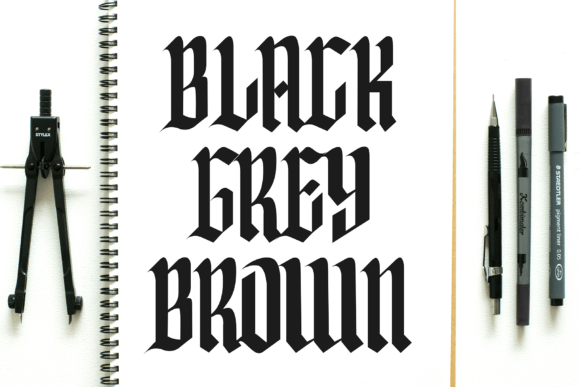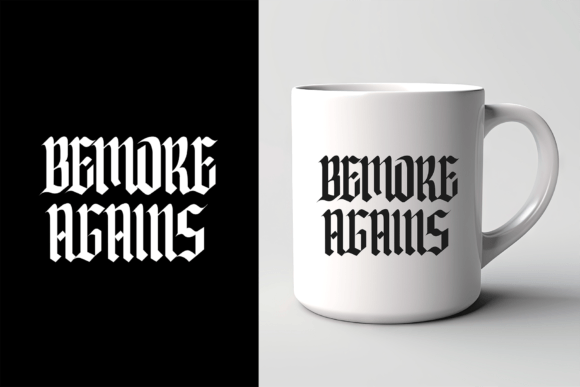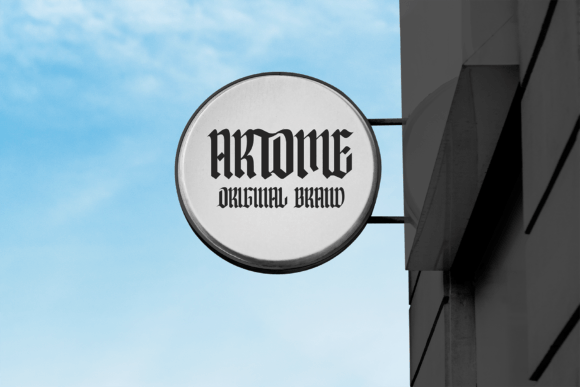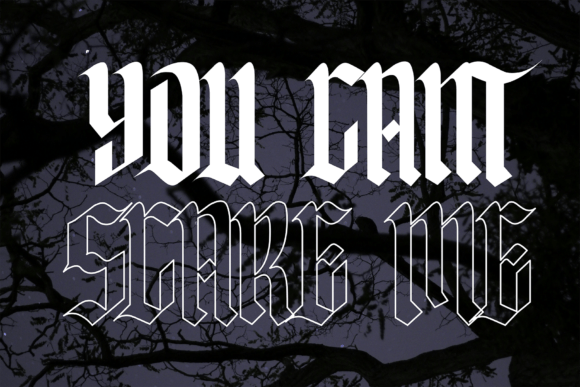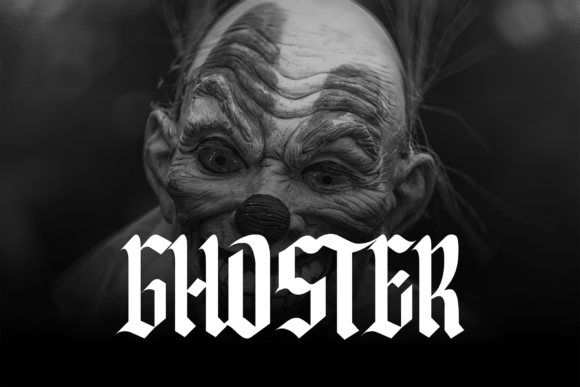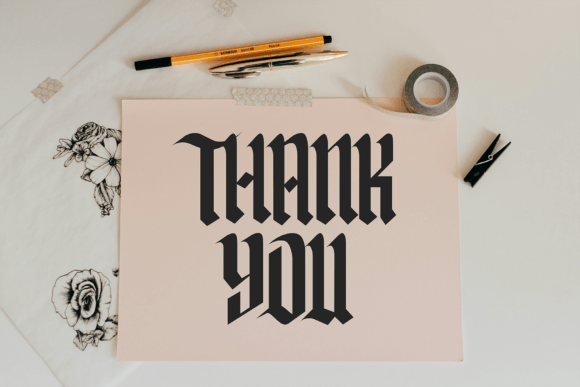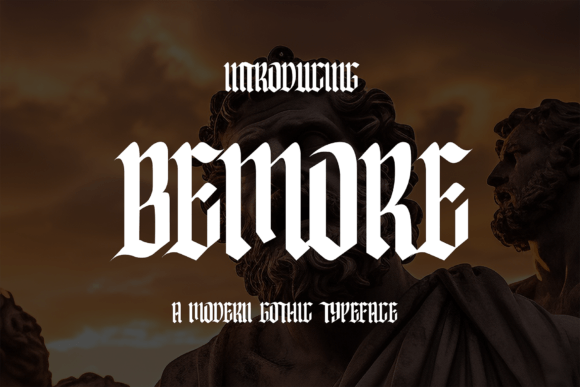
Bemore Font: A Unique Blend of Classic Elegance and Contemporary Flair
In the world of typography, fonts play a crucial role in conveying the tone and aesthetic of a design. For designers and crafters looking for a font that exudes classic elegance with a modern twist, Bemore Font is an excellent choice. This unique font seamlessly blends the traditional charm of blackletter gothic with a contemporary flair, making it perfect for western and Gothic-themed designs.
The Inspiration Behind Bemore Font
Bemore Font is inspired by the traditional blackletter gothic typefaces, which were popular in the Middle Ages. Blackletter fonts are characterized by their dramatic flourishes, intricate details, and bold strokes. However, these traditional fonts often lack a modern edge, making them less suitable for contemporary designs. Bemore Font addresses this gap by infusing the classic elegance of blackletter gothic with a modern flair, resulting in a font that is both timeless and trendy.
Key Features of Bemore Font
Bemore Font boasts several key features that make it an attractive choice for designers and crafters:
- Unique Blend of Styles: Bemore Font combines the classic elegance of blackletter gothic with a contemporary twist, making it perfect for designs that require a touch of sophistication and modernity.
- Western and Gothic-Themed Designs: The font is specifically designed to cater to western and Gothic-themed design needs, making it an excellent choice for projects that require a bold and dramatic look.
- Bold Statement: Bemore Font is designed to make a bold statement, making it perfect for headlines, titles, and other design elements that require attention-grabbing typography.
- High Versatility: The font is highly versatile and can be used for a wide range of design projects, including branding, advertising, packaging, and more.
Design Elements and Characteristics
Bemore Font features a range of design elements and characteristics that make it stand out from other fonts:
- Intricate Details: The font features intricate details, including flourishes and swashes, which add a touch of elegance and sophistication to designs.
- Bold Strokes: Bemore Font has bold strokes that give it a dramatic and eye-catching appearance, making it perfect for designs that require a bold statement.
- Classic Letterforms: The font features classic letterforms with a modern twist, making it perfect for designs that require a touch of tradition and heritage.
Tips for Using Bemore Font
Here are some tips for using Bemore Font in your designs:
- Use it for Headlines and Titles: Bemore Font is perfect for headlines and titles, where its bold strokes and intricate details can make a big impact.
- Pair it with Simple Fonts: To create visual interest, pair Bemore Font with simple fonts that provide a clean and elegant contrast.
- Experiment with Colors: Bemore Font looks great in a range of colors, from metallic tones to bold brights. Experiment with different colors to find the perfect look for your design.
Bemore Font is a unique and versatile font that seamlessly blends the classic elegance of blackletter gothic with a contemporary flair. With its bold strokes, intricate details, and classic letterforms, Bemore Font is perfect for western and Gothic-themed designs that require a bold statement. Whether you’re a designer or crafter, Bemore Font is an excellent choice for adding a touch of sophistication and modernity to your designs.